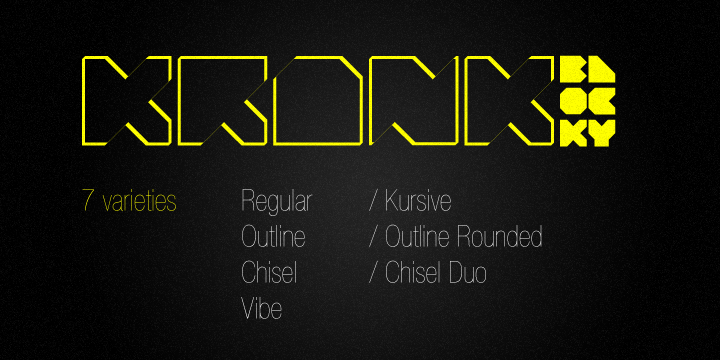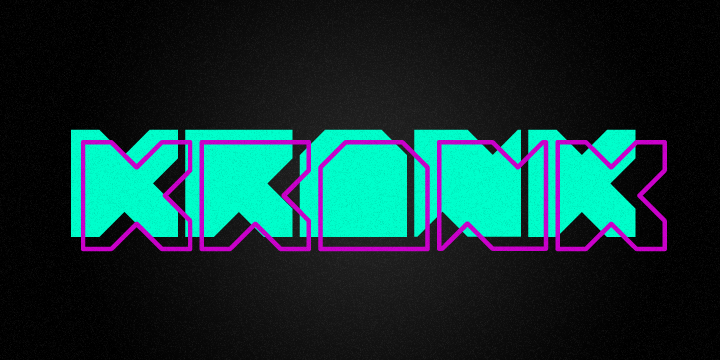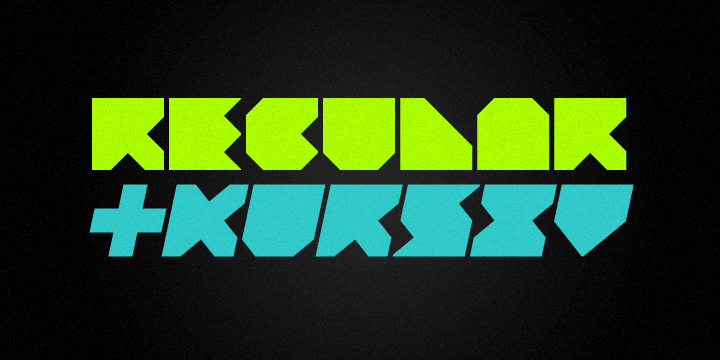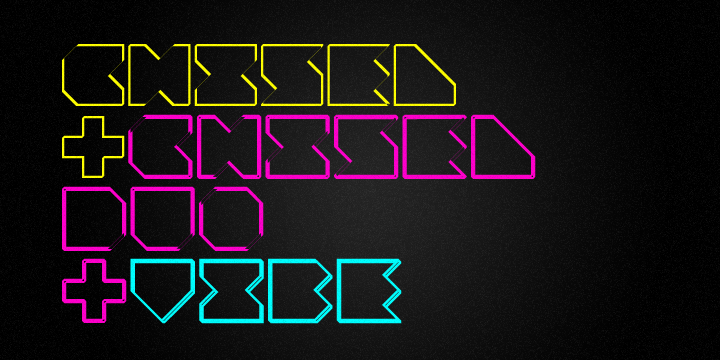
Krank is a novelty font family. This typeface has seven styles and was published by Matt Grey Design.
A minimalist, stackable and dynamic squared of typeface perfect for posters and large print and screen material.